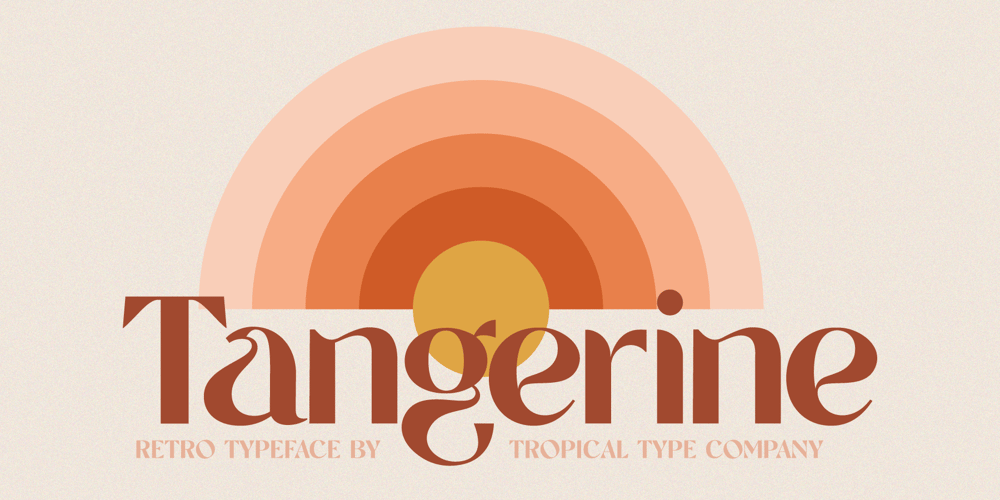
TT Tangerine Font Family was designed by Tom Cunningham and published by Tropical Type. TT Tangerine contains 2 styles and family package options. TT Tangerine made in 2017 has been a global hit. It’s been used by the biggest performing artist in the world, luxury brands, designer packaging and more.Due to its popularity an italic style was added in Feb 2023.From the designer:I wanted to make a retro font with that 70’s good vibes feel but i didn’t want to just copy letters from that era. I decided to make new unique letters that had that groovy 70s feel. The bold curves pay homage to the big hair and bell-bottoms of the golden era.